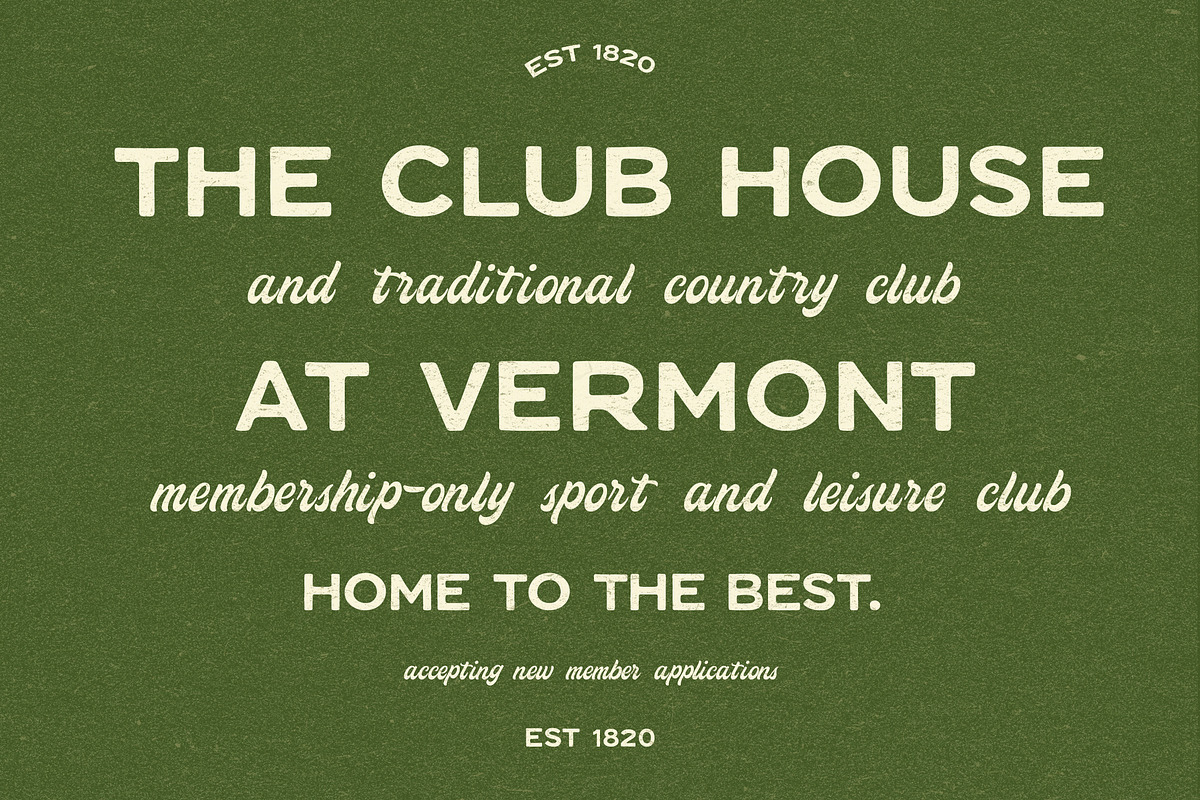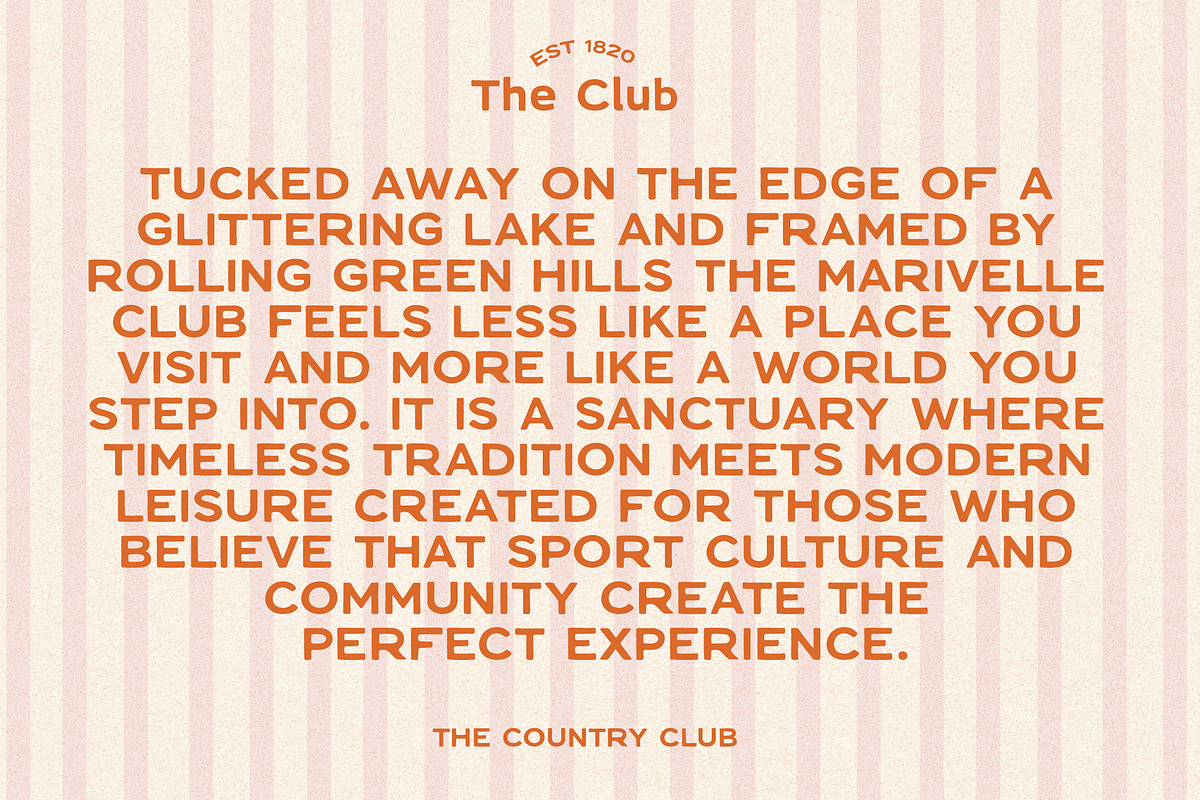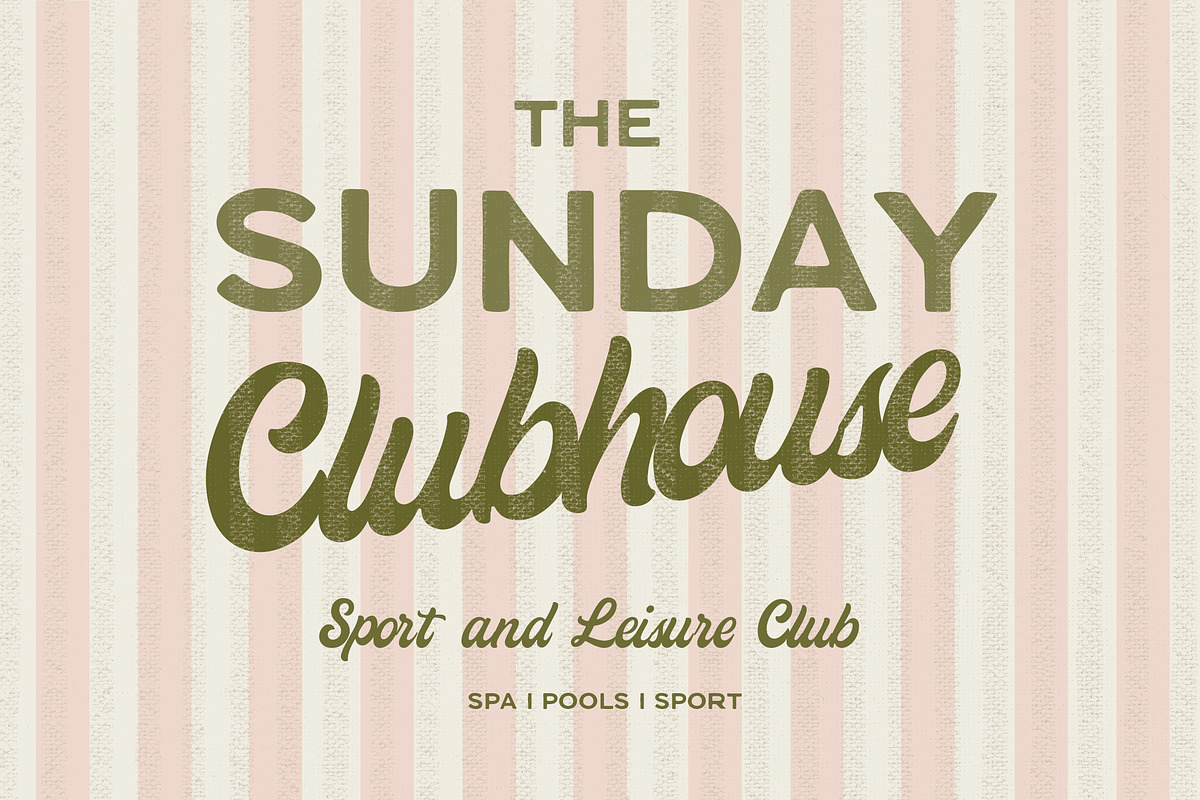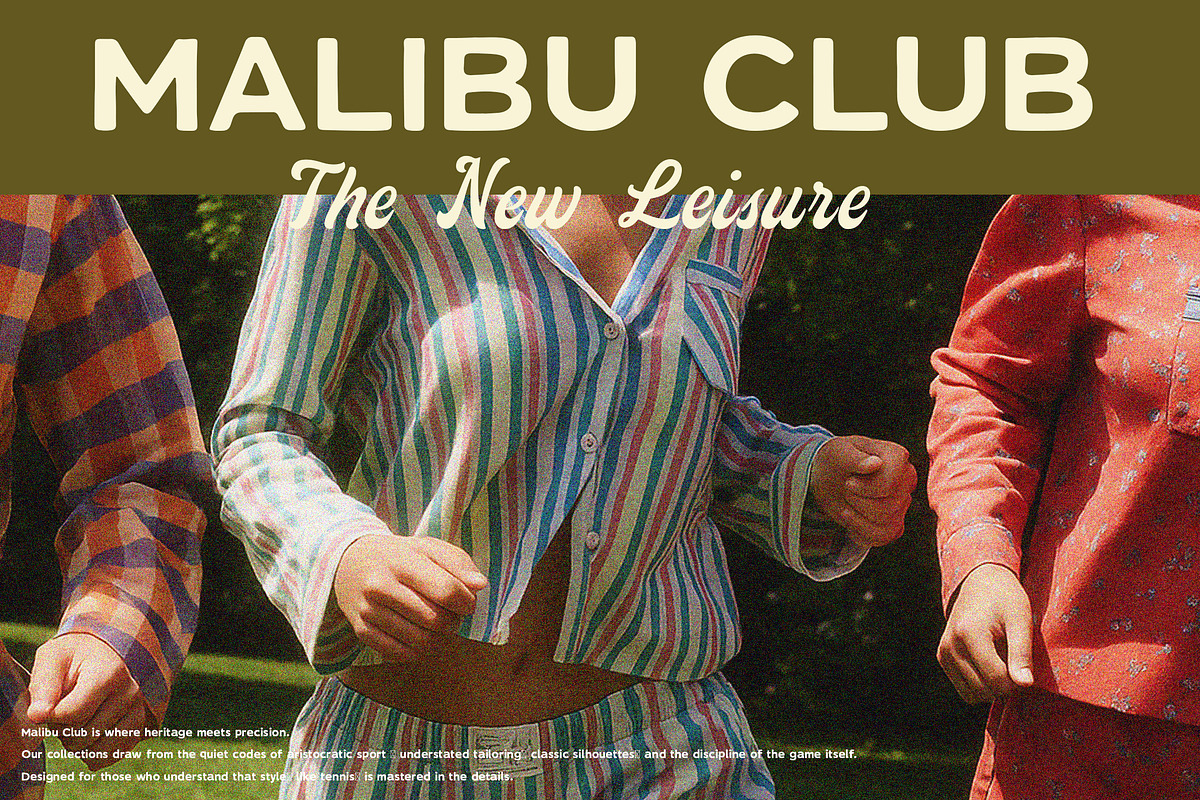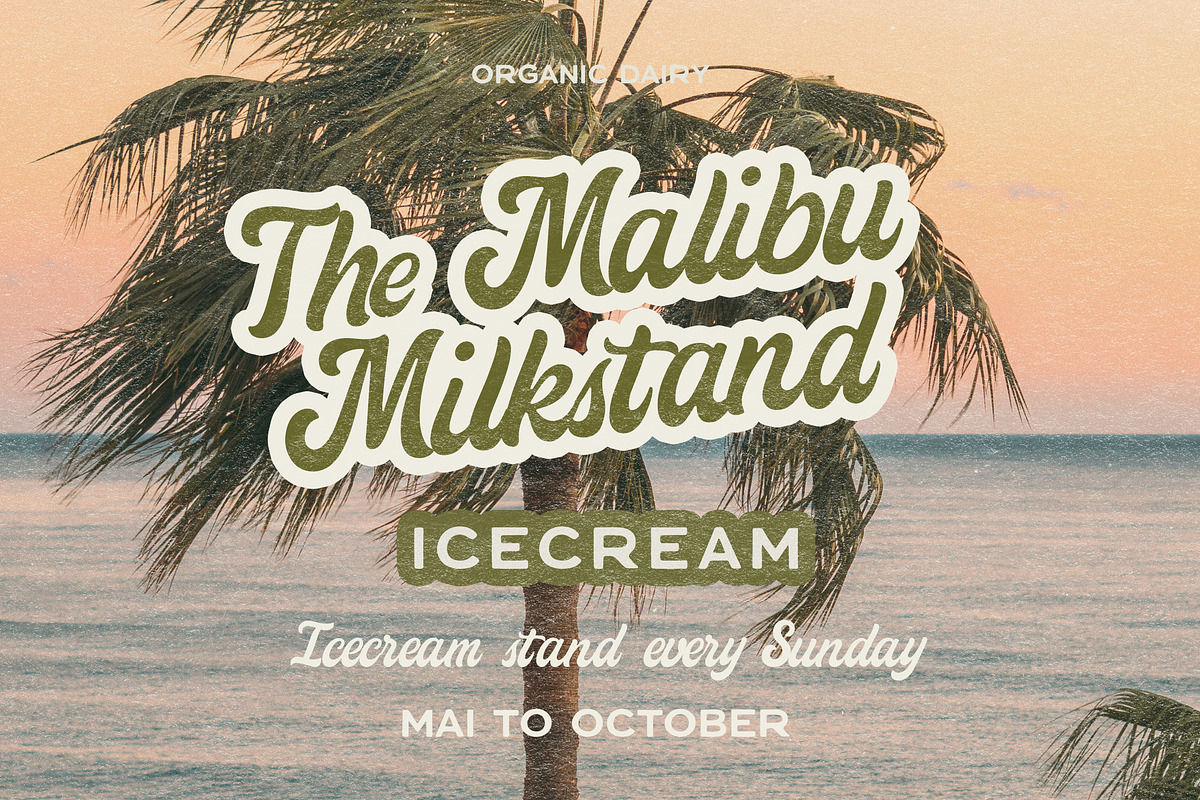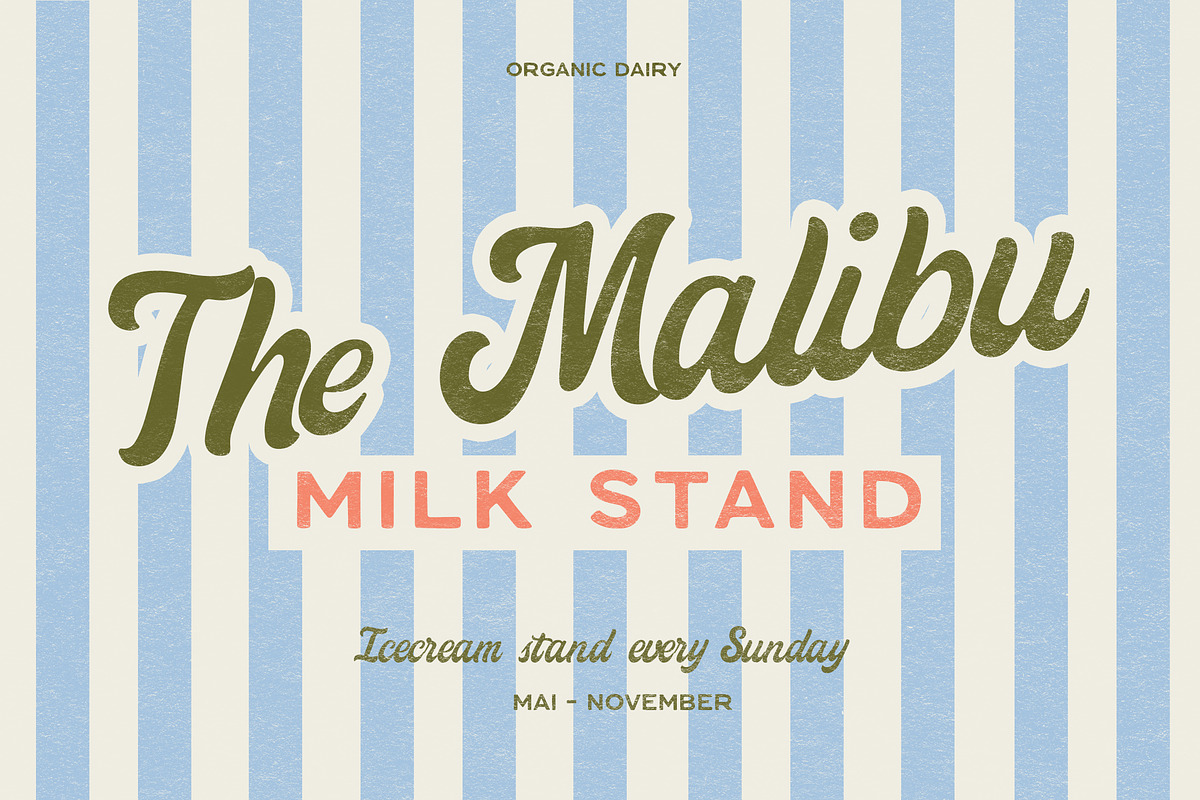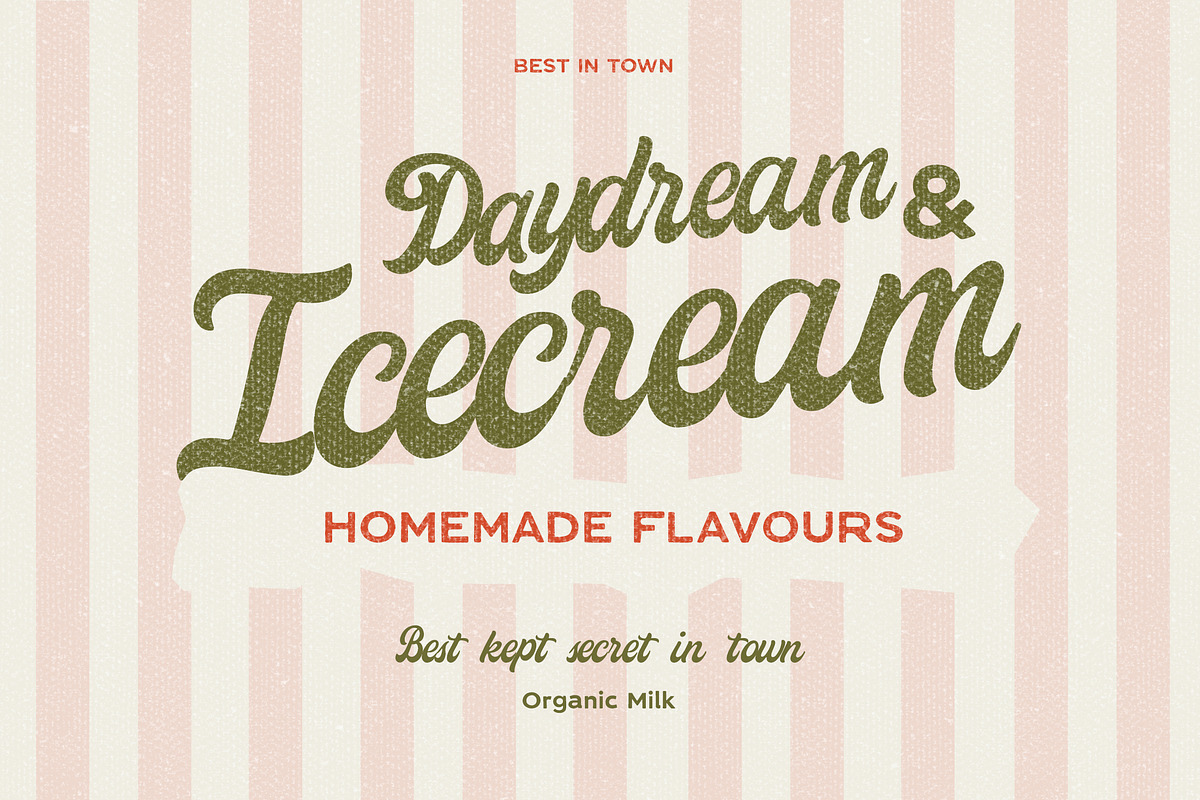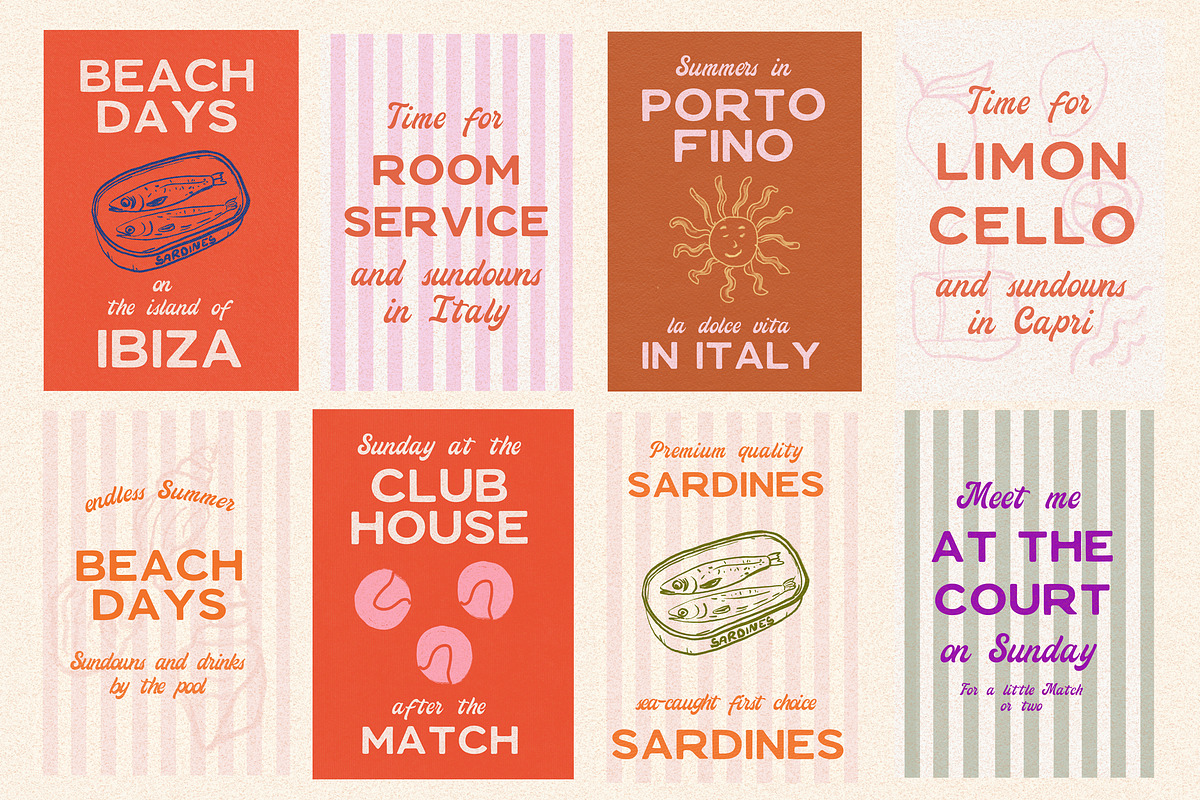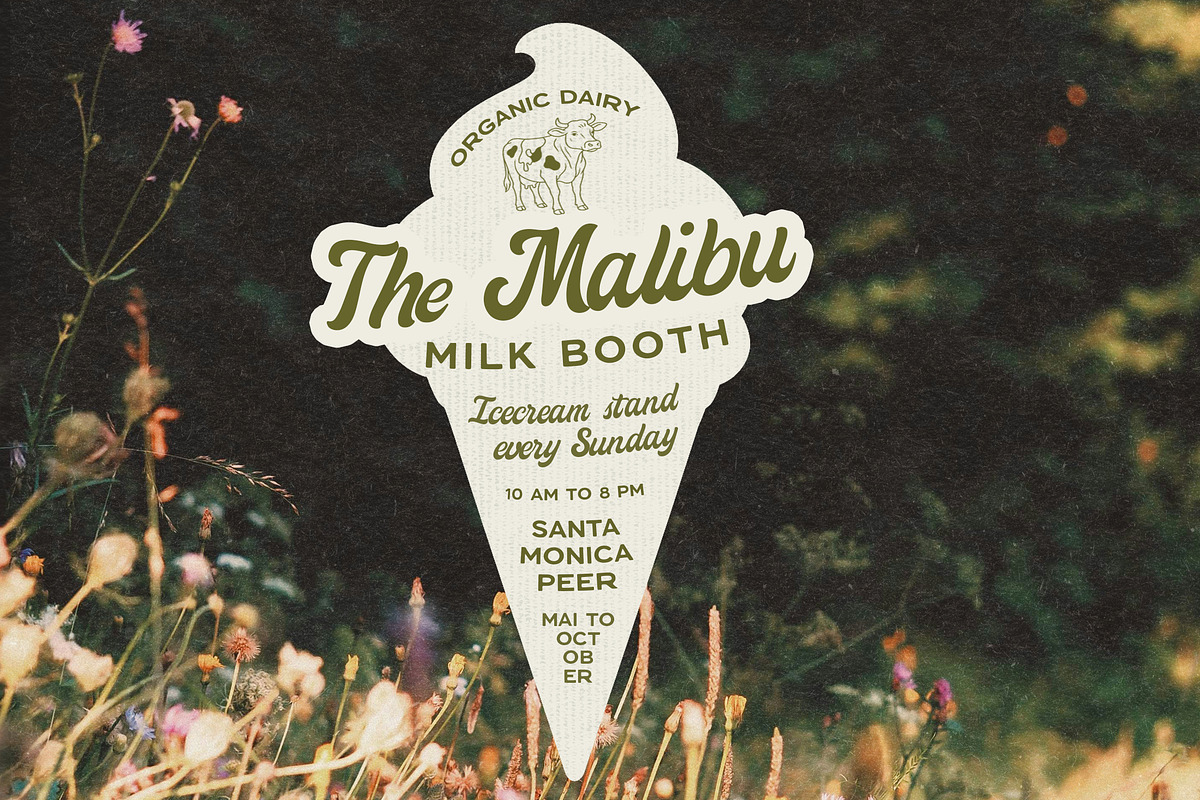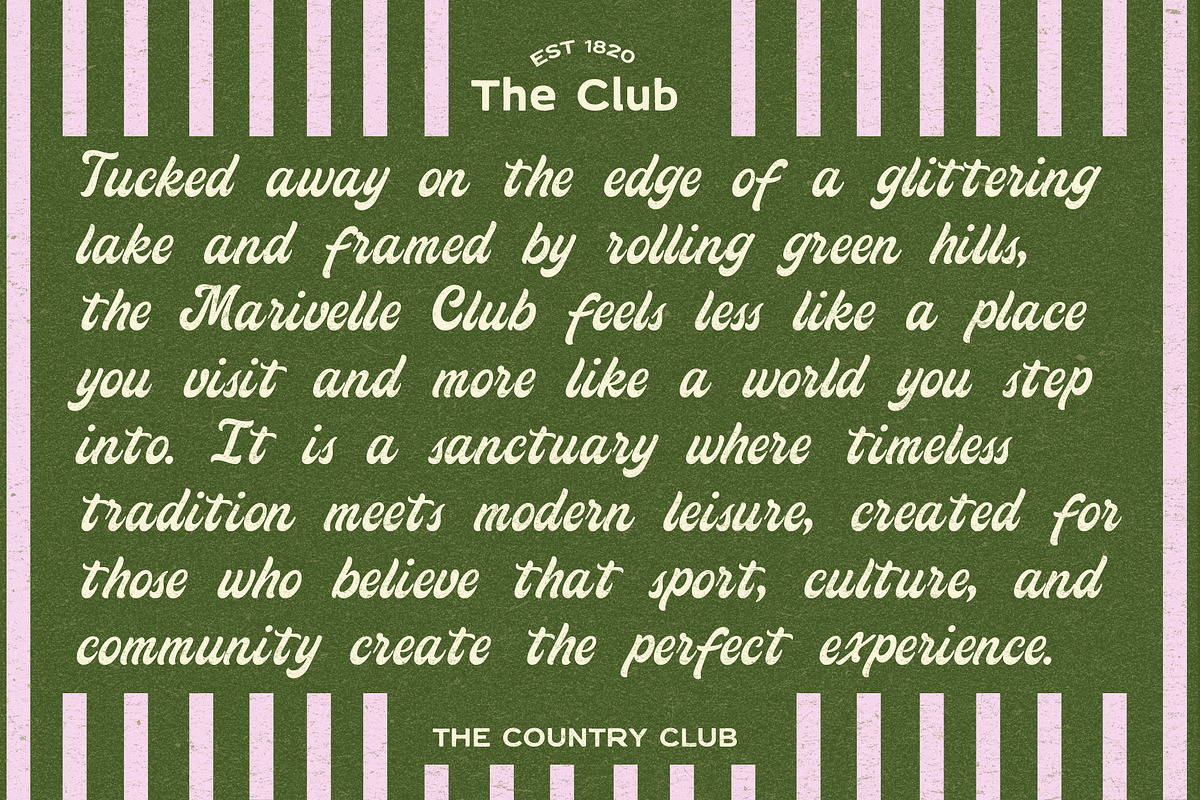
Handwritten Vintage Font Duo Sans
The Sunday Series & Club House come along as a trendy retro font duo, blending the warmth of handmade charm with the polish of sport and leisure. Inspired by vintage country club aesthetics and slow Sunday mornings, it pairs a clean, versatile sans with a romantic script for endless design possibilities. Perfect for branding, logos, packaging, wedding invitations, apparel, and social media graphics, this duo brings an on-trend yet timeless charm with authentic stamp and crafting vibes.
Whether you're channeling farmstead bakery vibes, coastal summer markets, or chic clubhouse elegance, this font set delivers style that’s both nostalgic and fresh. Happy creating! :)